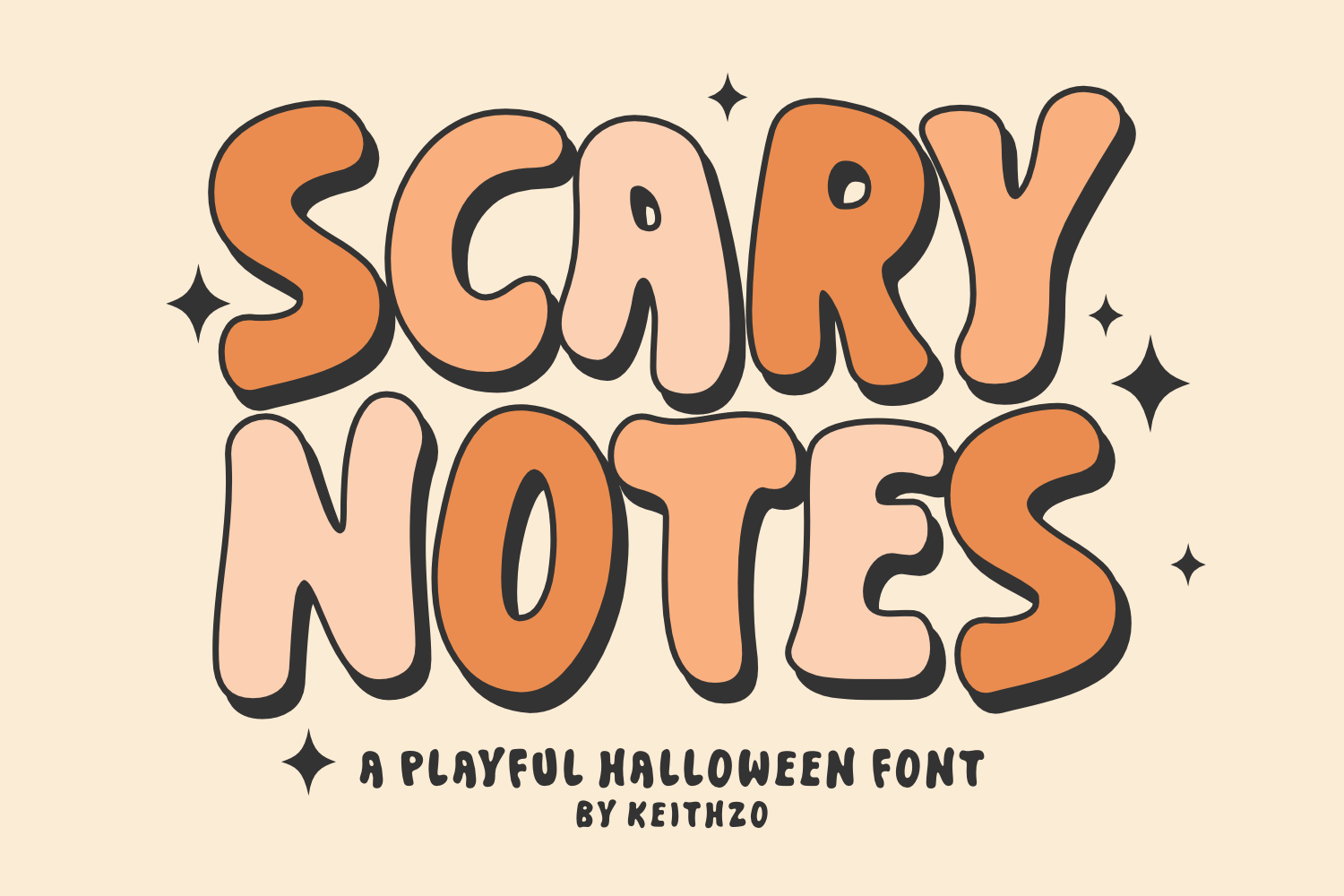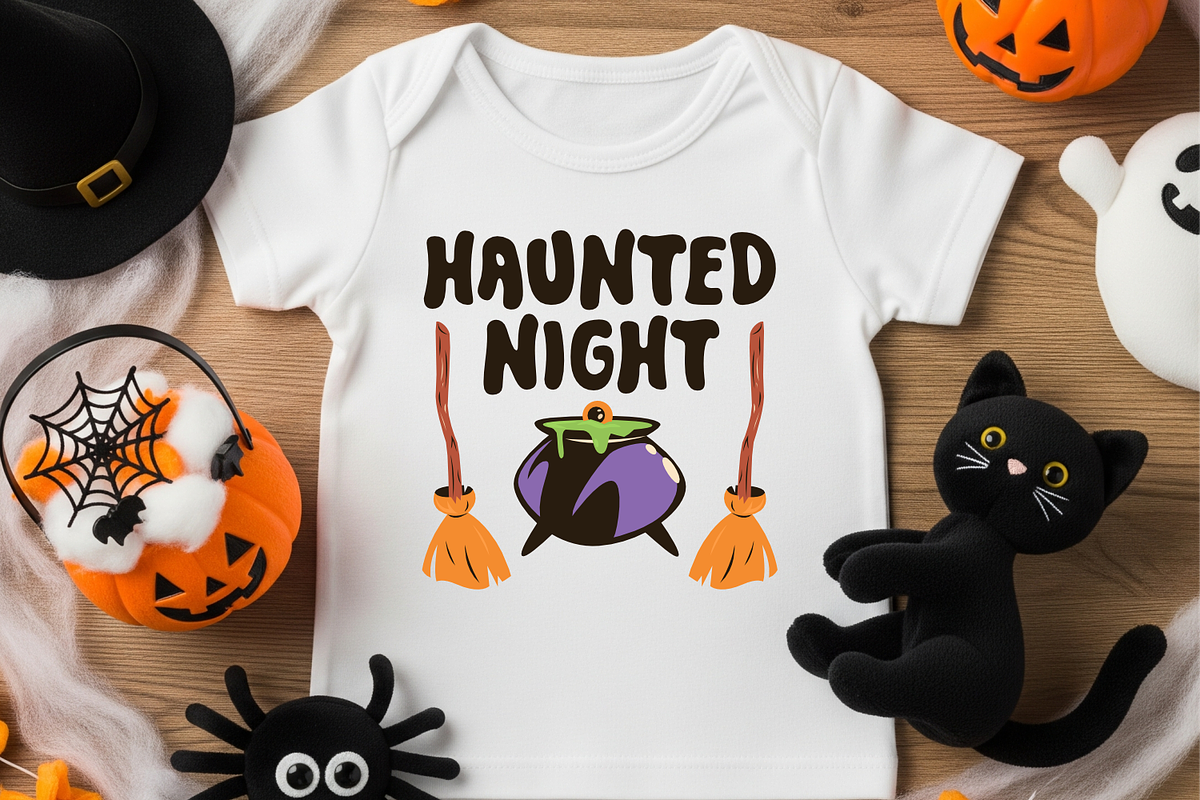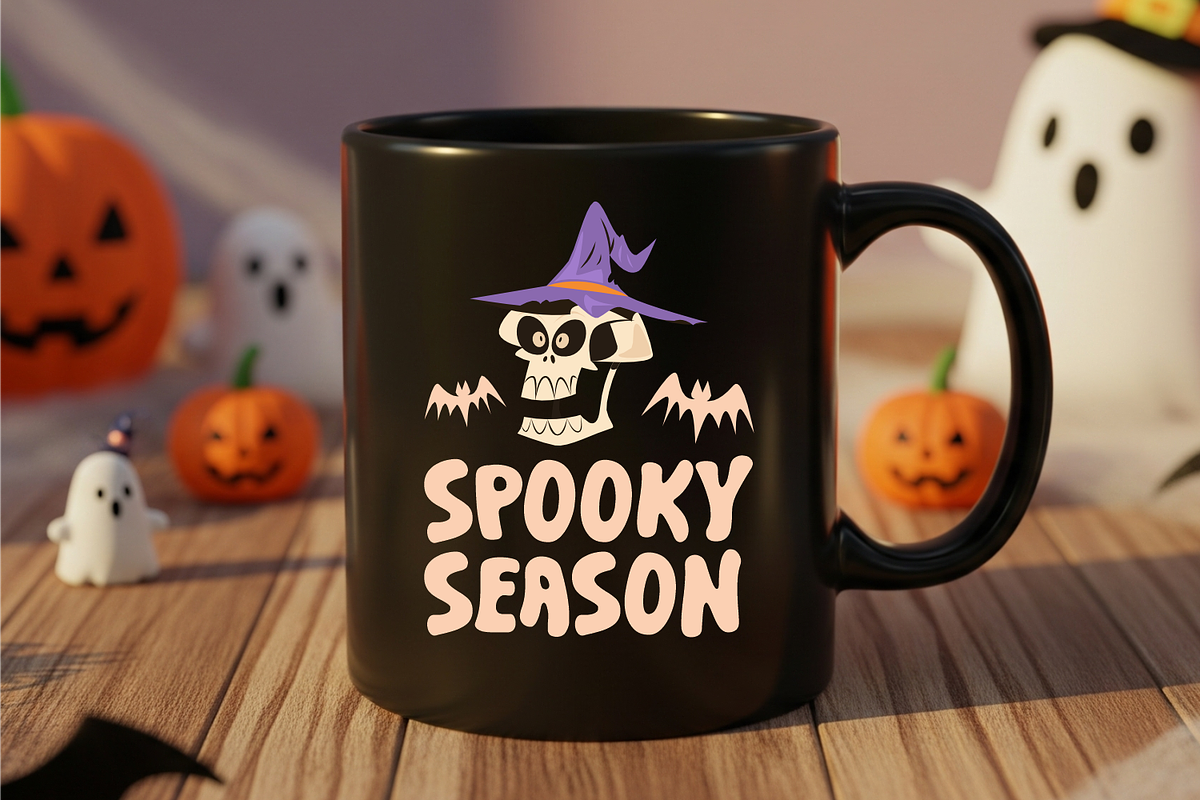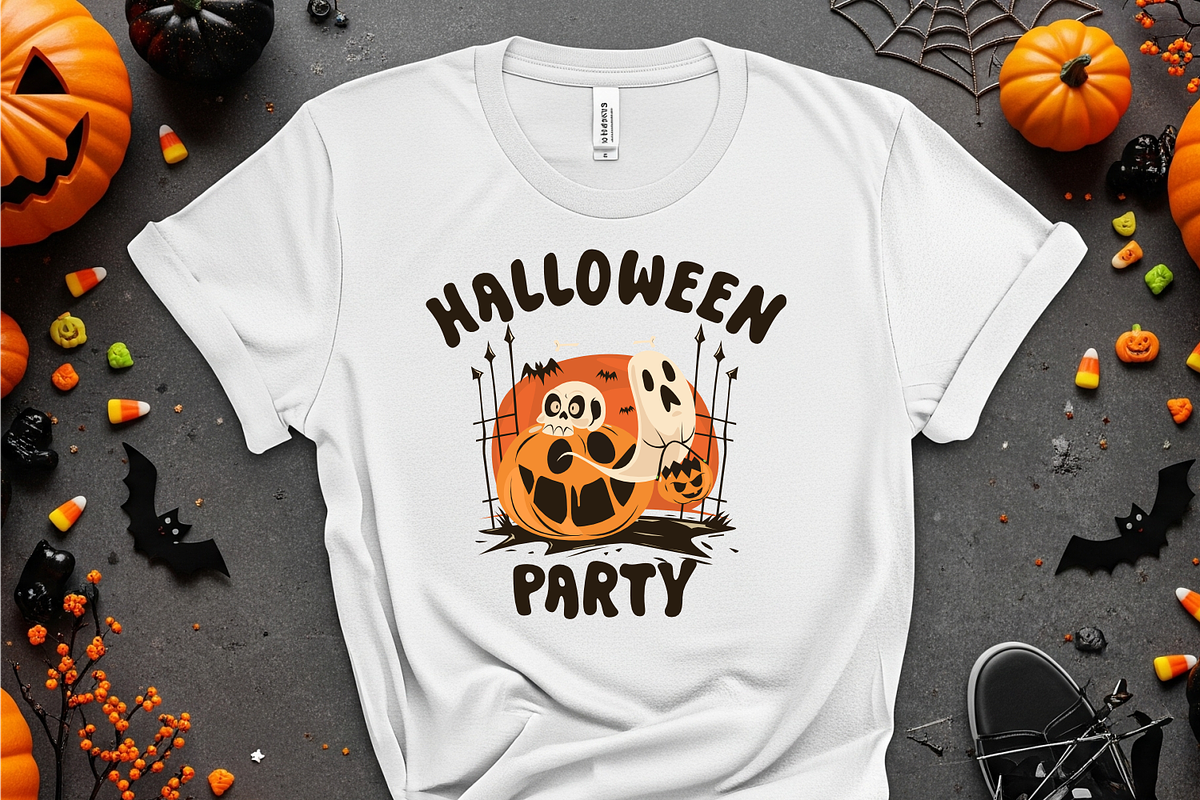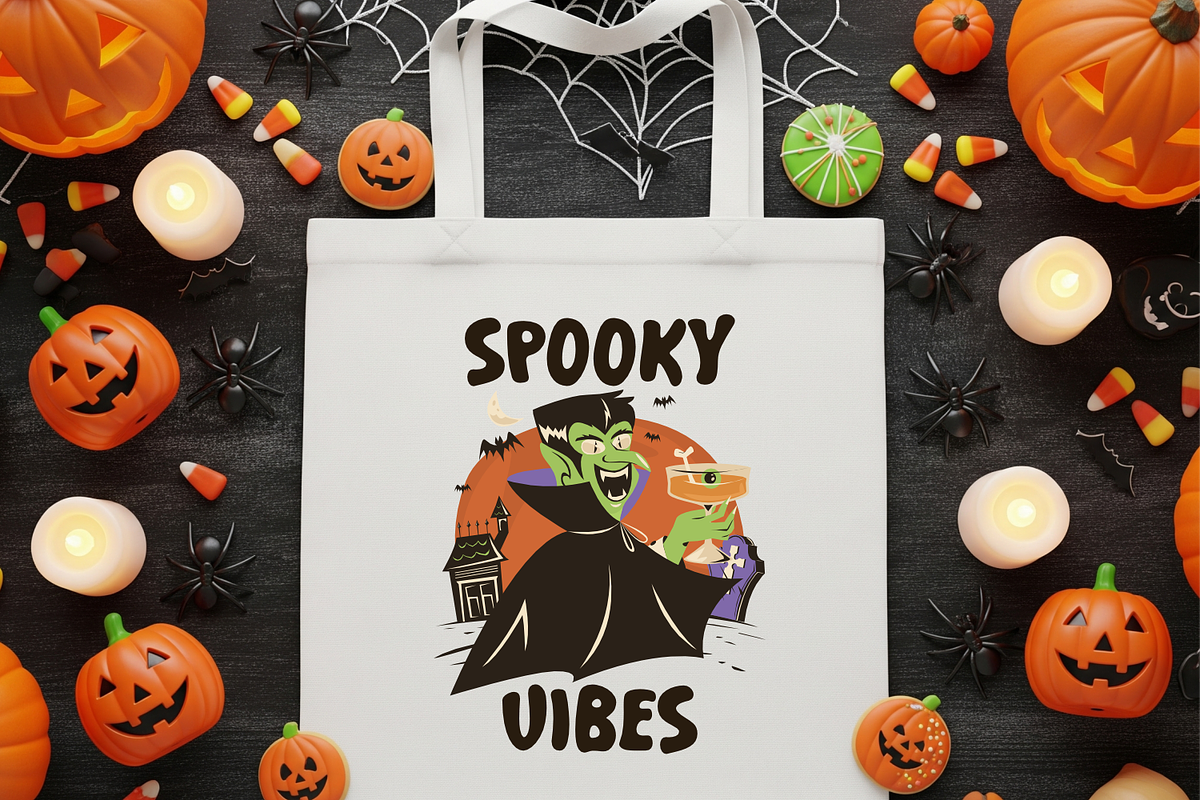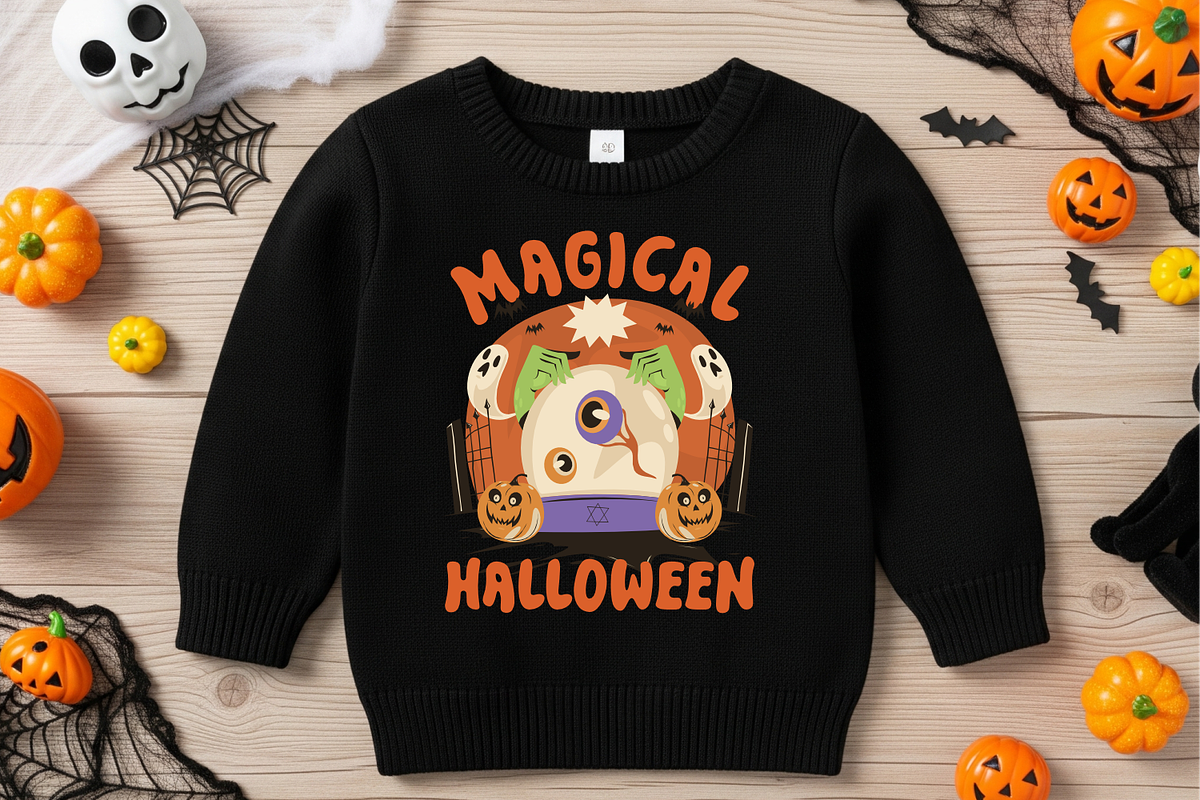
Scary Notes - Halloween Font
Introducing Scary Notes, a delightfully eerie and stylish retro display font guaranteed to add an edge to your creative ventures. Imbued with a touch of nostalgia, this font has been meticulously designed to radiate a charming spookiness, perfect for giving a truly unique flavor to your Halloween projects. It effortlessly breathes life into greeting cards, lending an unexpected twist to conventional designs and adding personality to book covers.
The adaptability of Scary Notes extends to stationery goods, magazines, and even commanding news headlines. Whether you’re developing merchandise such as t-shirts or mugs, or conjuring up visual masterpieces, Scary Notes is the key to achieving a compelling and atmospheric project. Unleash your creativity with the versatility of Scary Notes font today.